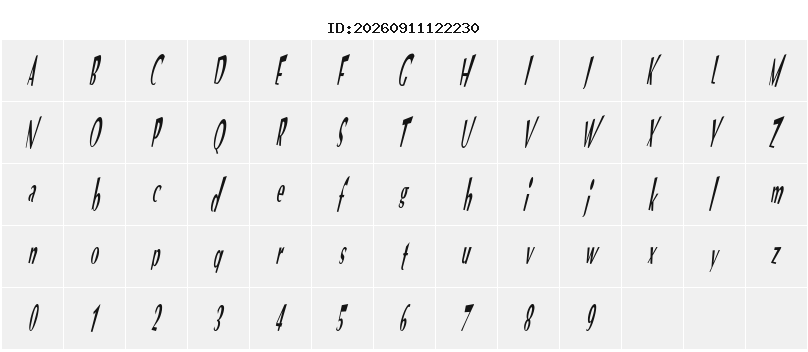
• Font Name: VTC Optika
• Font ID: V.T.C.VigilanteTypefaceCorporation,: VTC Optika Regular Italic: 1999
• Full Font Name: VTC Optika Regular Italic
• Version: 1999; 1.0, initial release
• PostScript Name: VTCOptika
• Character Count: 233
• Designer: WolfBainX
• Description: VTCOptika is a trademark of the V.T.C. Vigilante Typeface Corporation., Copyright (c) V.T.C. Vigilante Typeface Corporation, 1999. All rights reserved. Distroware! Spread like the Plague!
About VTC Optika.ttf
VTC Optika.ttf is a modern, elegant sans-serif font designed for ultimate readability and visual harmony. Perfect for branding, headlines, web design, and print materials.